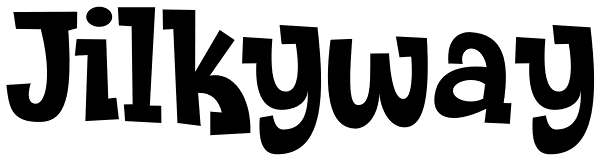
Jilkyway
Jilkyway is a truly weird font. Here and there you might spot some sanity in the weird font curves. But as you type, your text becomes more and more weird! The font is also suitable for text written in ALL CAPS! You will need to use OpenType...